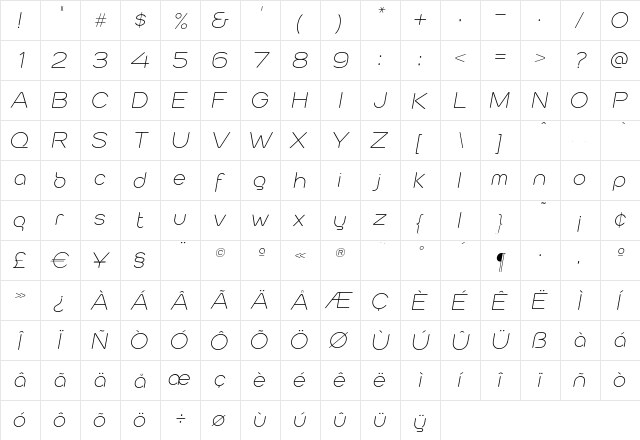
Cabourg OT LightOblique
| Foundry | Gustavo Piqueira |
| Designer | Gustavo Piqueira |
Design Context for Cabourg OT Typeface
Cabourg OT takes a measured approach to typography — its balanced proportions and neutral character make it a reliable workhorse for both digital and print work. Its italic angle brings a sense of urgency and motion to the letterforms. The delicate stroke weight brings airiness and refinement to layouts.
Pro Tip: Use Cabourg OT for emphasis, pull quotes, and subheadings where its slanted energy can add rhythm to the layout.